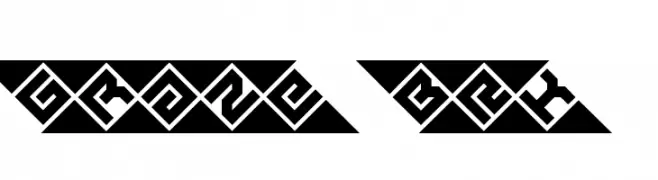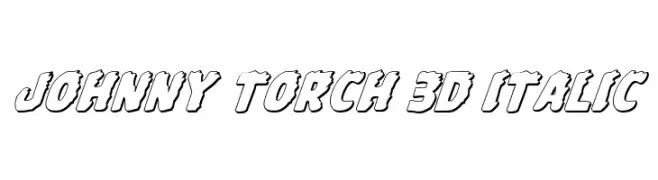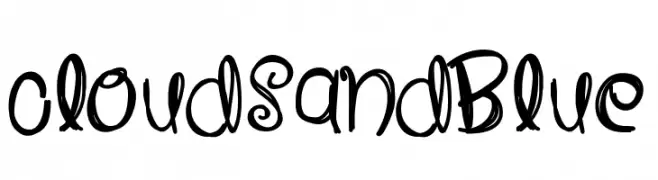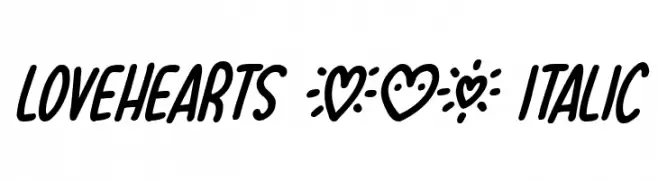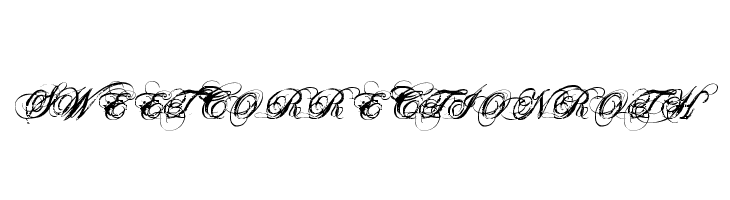
( Fonts by Maulana Creative )
An elegant script font with flowing, connected strokes and decorative swashes.
( Fonts by www.aenigmafonts.com )
A geometric, diamond-enclosed font with bold, angular lines.
A bold, 3D italic font with a playful, dynamic style.
( Fonts by Des Gomez )
A playful, handwritten font with a whimsical and energetic style.
( Fonts by Manuel Viergutz - Typo Graphic Design - www.typographicdesign.de )
A sleek, futuristic font with thin, continuous lines and a minimalist aesthetic.
( Fonts by Des Gomez )
A playful, handwritten font with whimsical embellishments and a casual style.